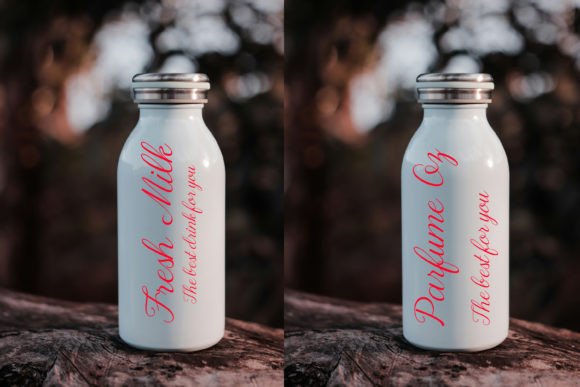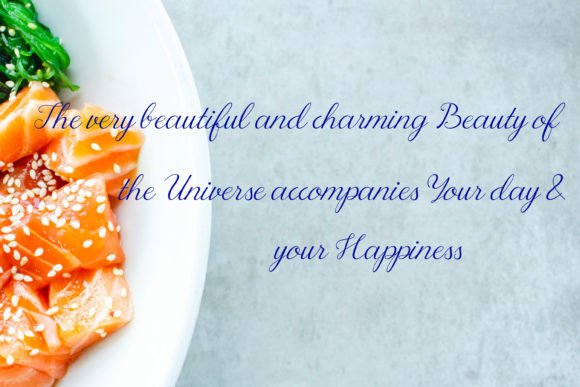
Discover the Elegance of Handwrittingkoe Font: A Smooth Script Style for Your Designs
In the world of typography, fonts play a crucial role in conveying the tone and aesthetic of a design. For crafters and designers seeking to add an elegant touch to their projects, the Handwrittingkoe font is an excellent choice. This font boasts a smooth script style that mimics handwriting, making it perfect for a variety of applications, from creative crafts to digital designs.
What is Handwrittingkoe Font?
Handwrittingkoe font is a carefully crafted typeface that replicates the fluidity and charm of handwritten script. Created based on actual handwriting and then meticulously arranged in digital form, this font embodies the essence of personal and elegant writing. Its design ensures that each letter and word flows smoothly into the next, creating a harmonious and sophisticated look.
Characteristics of Handwrittingkoe Font
The Handwrittingkoe font is distinguished by its beautiful and elegant characteristics, making it suitable for designs that require a touch of refinement. Some of its key features include:
- Smooth Script Style: The font’s script style is incredibly smooth, resembling natural handwriting. This smoothness ensures that the text is easy to read and visually appealing.
- Elegant Appearance: With its elegant design, the Handwrittingkoe font is perfect for projects that demand a sophisticated look, such as wedding invitations, luxury branding, and high-end product packaging.
- Versatility: This font is versatile and can be used across various platforms, from digital media to print materials. Its adaptability makes it a valuable asset for designers and crafters.
- Readable: Despite its elegant and cursive nature, the Handwrittingkoe font maintains a high level of readability, making it suitable for both headings and body text.
Uses of Handwrittingkoe Font
The applications of the Handwrittingkoe font are diverse, catering to the needs of various design projects. Some of the most popular uses include:
- Wedding and Event Invitations: The elegant nature of the font makes it ideal for wedding invitations, save-the-date cards, and other event-related materials.
- Branding and Logo Design: For businesses aiming to convey a sense of luxury, elegance, and personal touch, the Handwrittingkoe font can be a valuable asset in creating a brand identity.
- Stationery and Greeting Cards: Adding a touch of elegance to stationery, greeting cards, and thank-you notes is effortless with this beautiful font.
- Digital Designs: Whether it’s for website headers, social media graphics, or digital advertising, the Handwrittingkoe font can add a sophisticated touch to any digital design.
Tips for Using Handwrittingkoe Font
To maximize the impact of the Handwrittingkoe font in your designs, consider the following tips:
- Pair with Complementary Fonts: For optimal results, pair the Handwrittingkoe font with simpler, sans-serif fonts to create contrast and enhance readability.
- Adjust Font Size: Experiment with different font sizes to ensure that your text is readable and visually appealing. Larger sizes are perfect for headings, while smaller sizes work well for body text.
- Play with Colors: The elegance of the Handwrittingkoe font can be further emphasized by choosing the right color schemes. Neutral colors like black, navy, and gray often highlight its sophisticated nature.
| Font Name | Handwrittingkoe Font |
| Author | Font Seven |
The Handwrittingkoe font is a versatile and elegant typeface that can elevate the aesthetic of any design project. Its smooth script style, elegant appearance, and readability make it a preferred choice for designers and crafters seeking to add a touch of sophistication to their work. Whether you’re creating wedding invitations, branding materials, or digital designs, the Handwrittingkoe font is sure to leave a lasting impression.
Explore the possibilities of the Handwrittingkoe font and discover how it can transform your designs with its unique blend of elegance and readability.